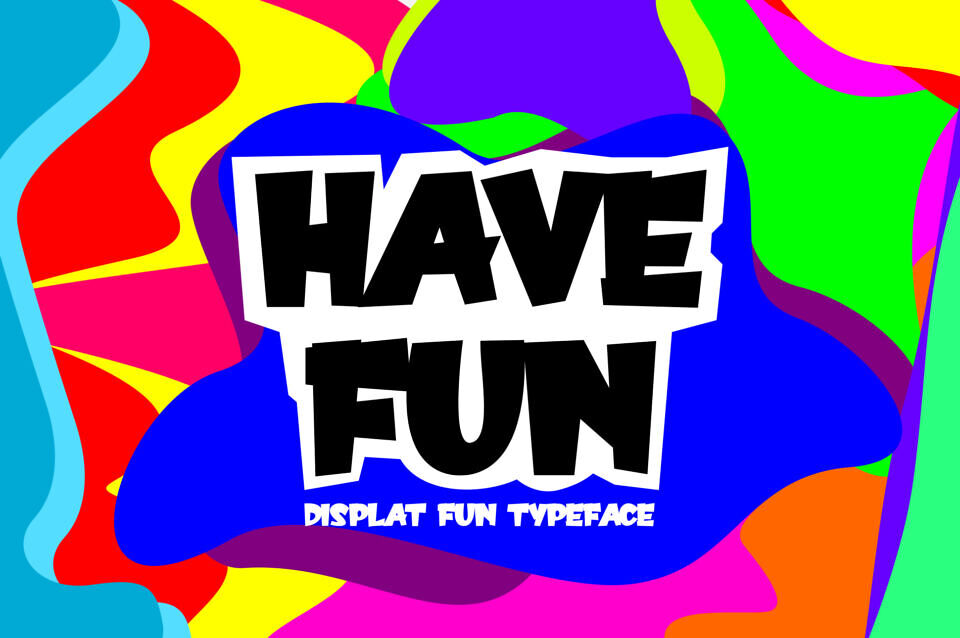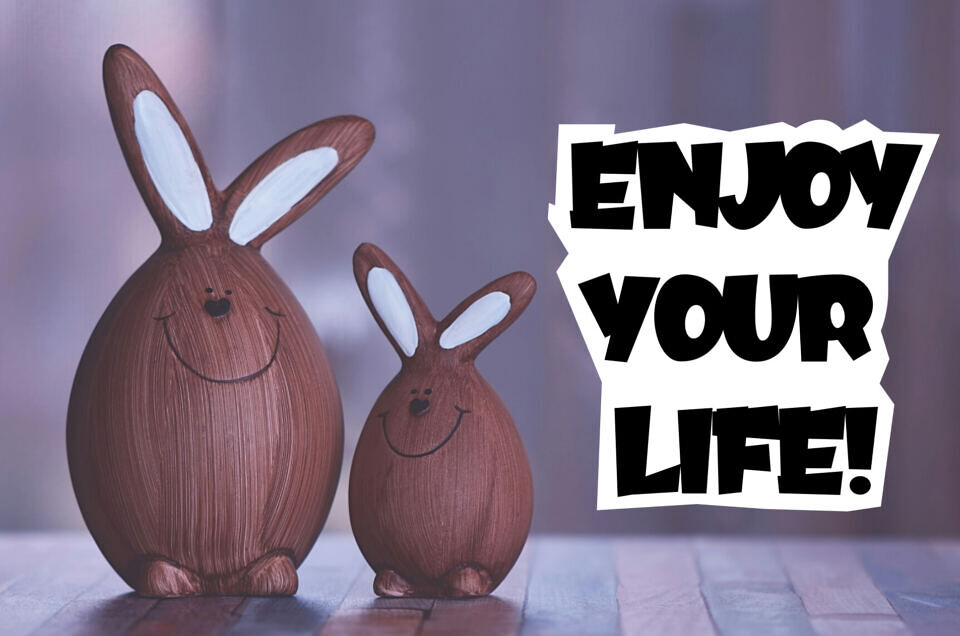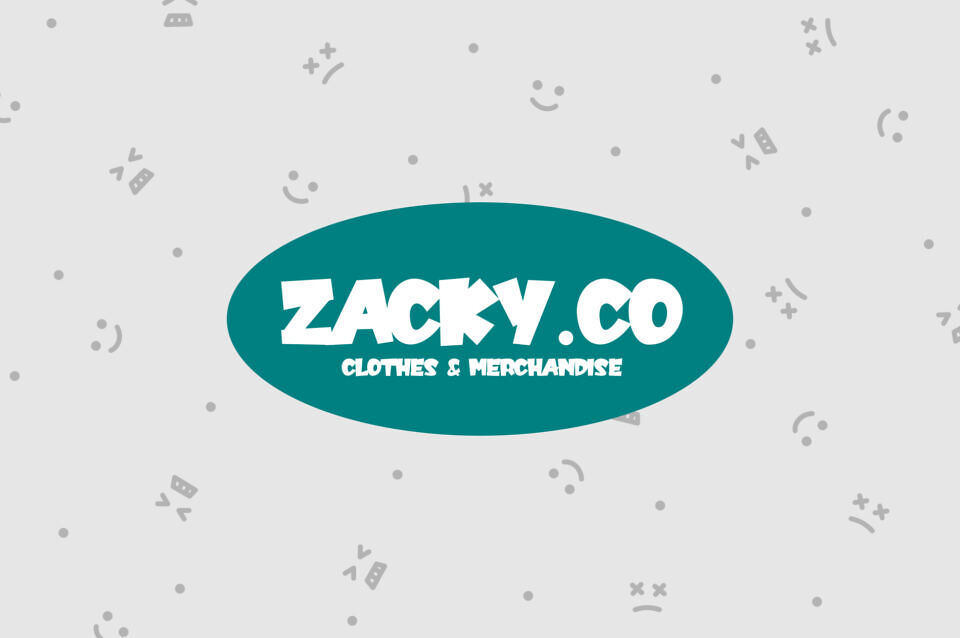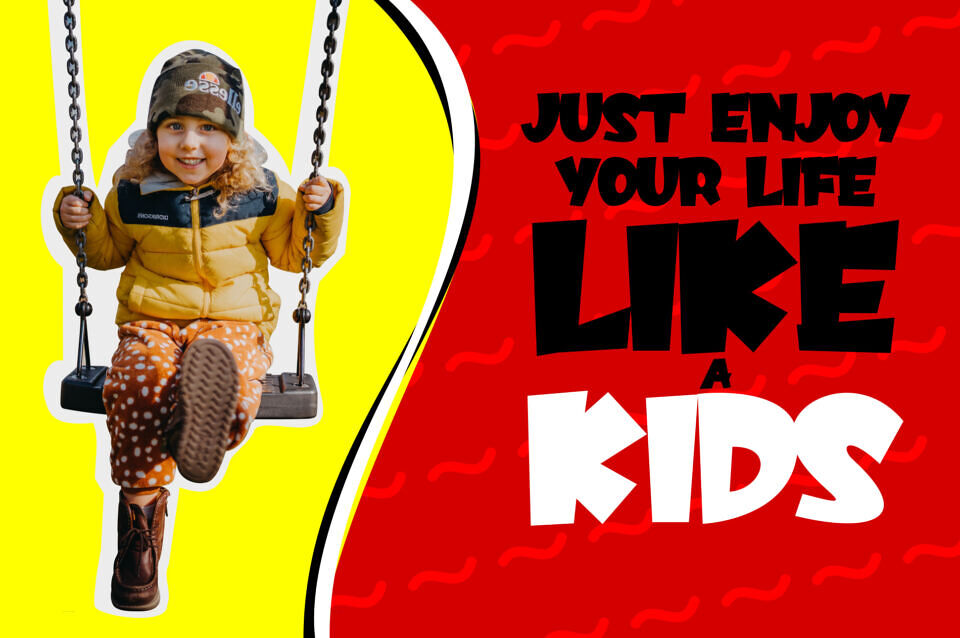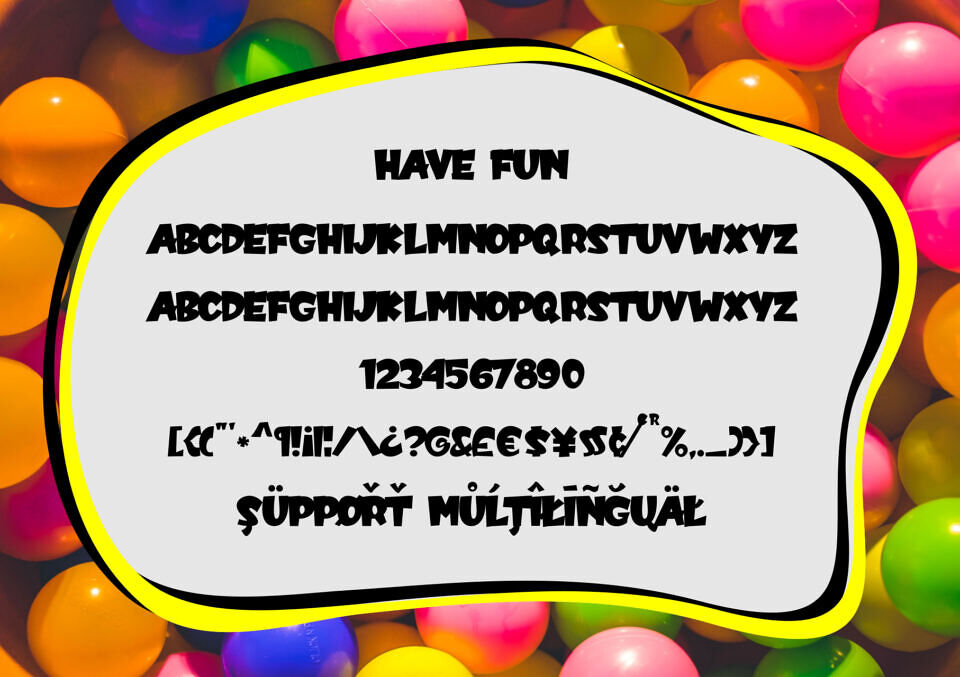
Have Fun is a cool and chunky lettered display font. It embodies playfulness and it is perfect for children themed designs, especially when combined with bright colors.